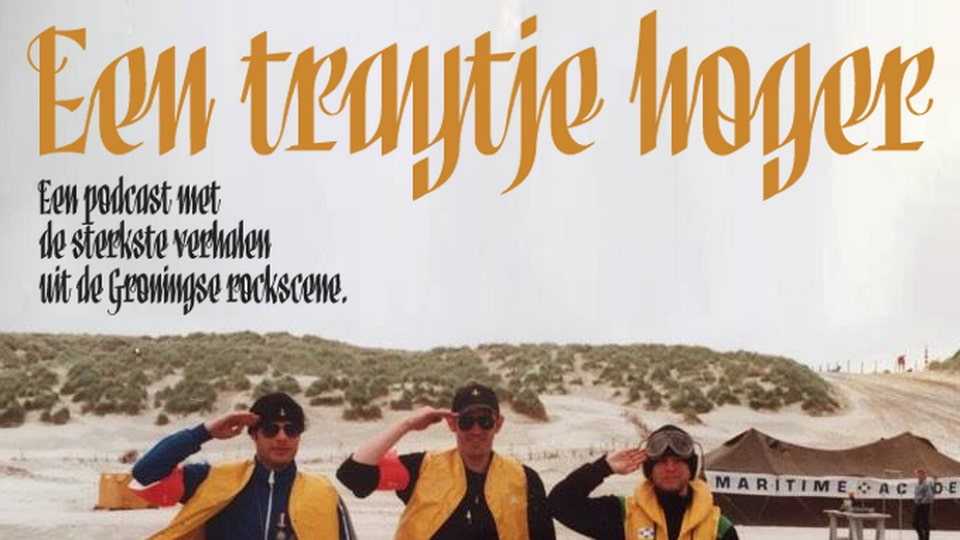
Download Cownaffle font, a script typeface with connected lower case letters inspired by the signature with almost all vertical lines.
Designer: Tup Wanders